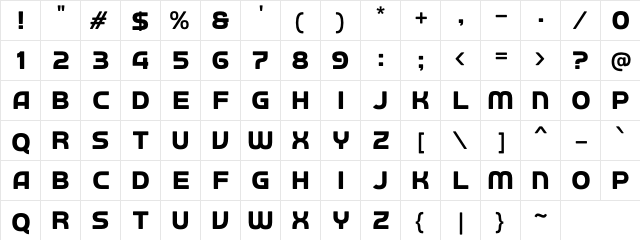
a Autobus Omnibus Regular
| Designer | Wahyu Eka Prasetya |
Design Context for a Autobus Omnibus Typeface
a Autobus Omnibus is a composed and adaptable typeface that performs quietly and consistently across a wide range of design contexts.